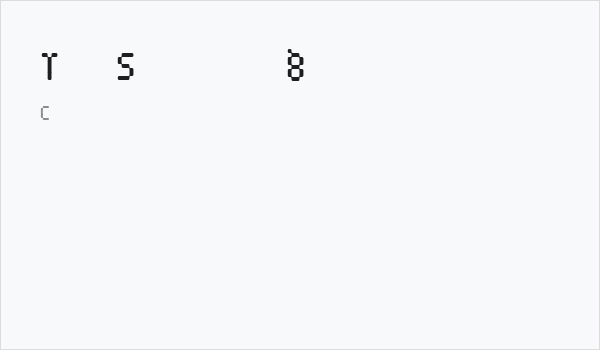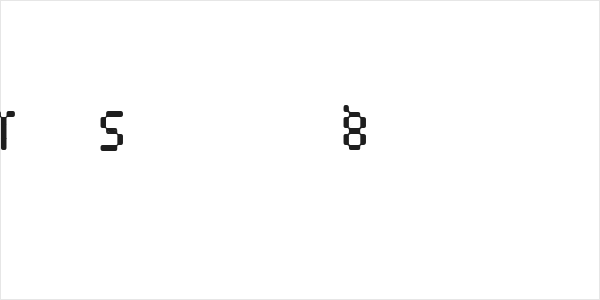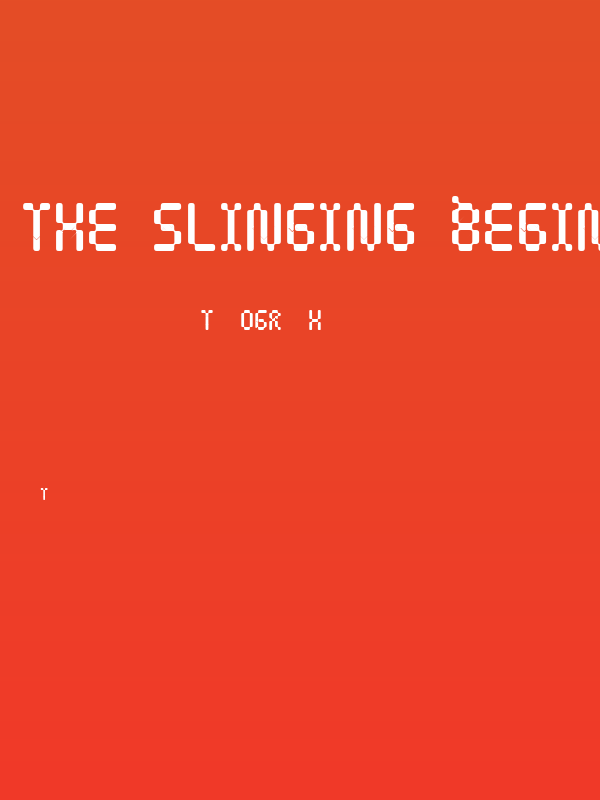
The Slinging Beginnings Font
The Slinging Beginnings Description
This font features a unique, blocky design with rounded corners, giving it a playful and modern appearance. The characters are constructed with a consistent thickness, creating a uniform look across all letters and numbers. The rounded edges soften the overall aesthetic, making it suitable for creative and informal applications. The font maintains a consistent height and width among characters, ensuring readability while adding a distinctive style. Its geometric structure is reminiscent of digital or pixelated fonts, yet the rounded corners add a touch of approachability and friendliness.
| Proposed Projects | Ideal for digital designs, video game graphics, children's books, and creative branding projects. |